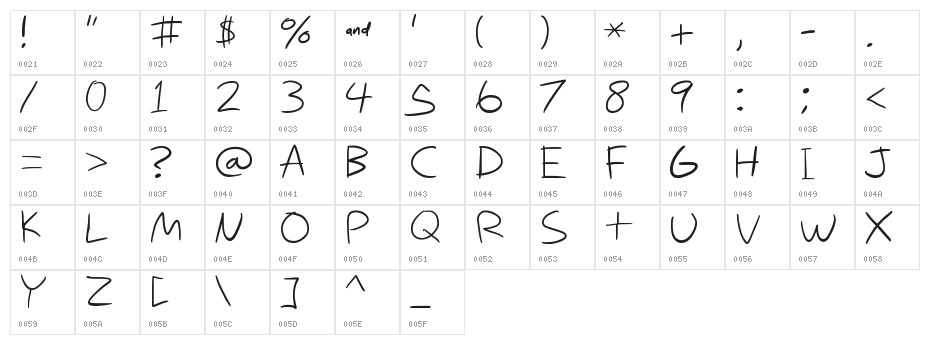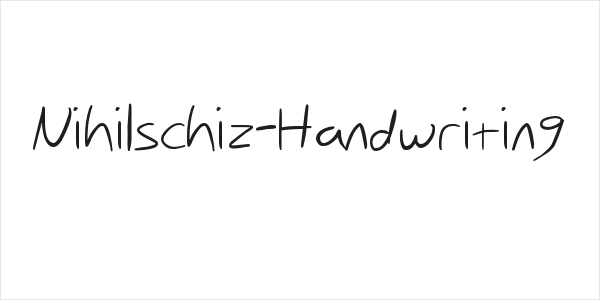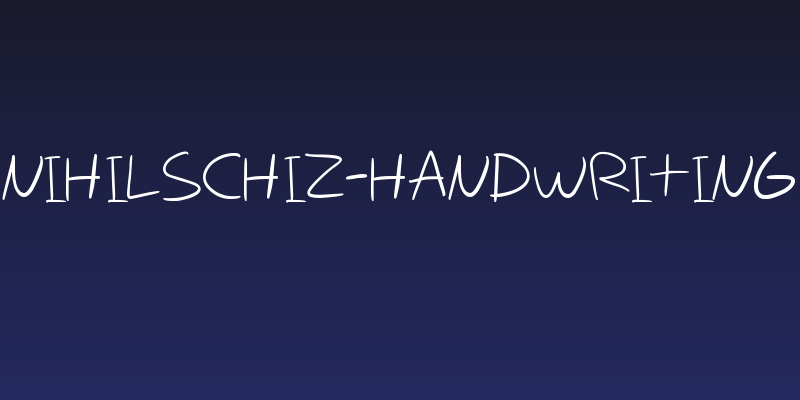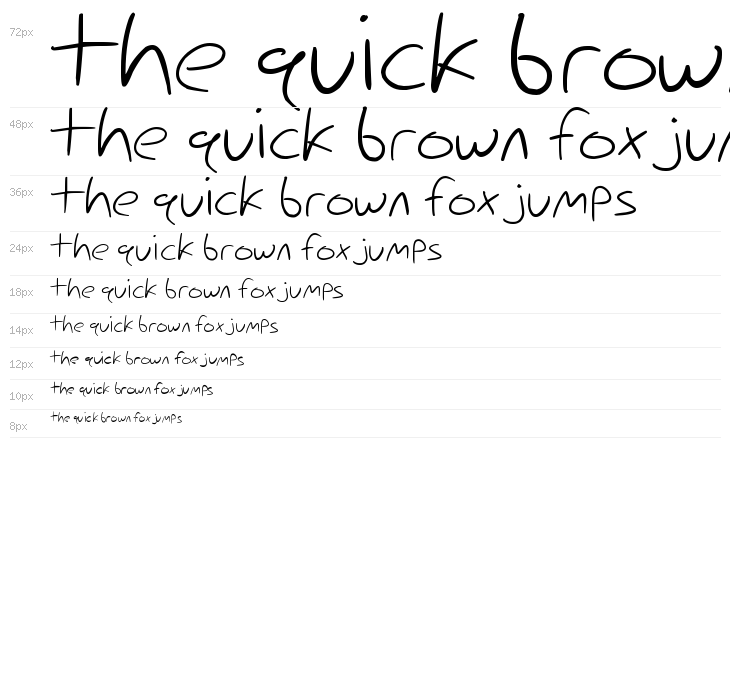
Nihilschiz-Handwriting Font
Nihilschiz-Handwriting Description
This font exudes a casual, handwritten style with a playful and informal character. The letters are slightly irregular, mimicking the natural flow of handwriting. The strokes are smooth and consistent, with a medium thickness that provides good readability. The uppercase and lowercase letters maintain a cohesive look, while the numerals and special characters blend seamlessly into the overall design. This font captures the essence of personal touch and creativity, making it ideal for projects that require a human element.
| Use Case | Greeting cards, Personal notes, Informal invitations |
| Proposed Projects | Ideal for personal notes, greeting cards, informal invitations, and creative projects that require a personal touch. |